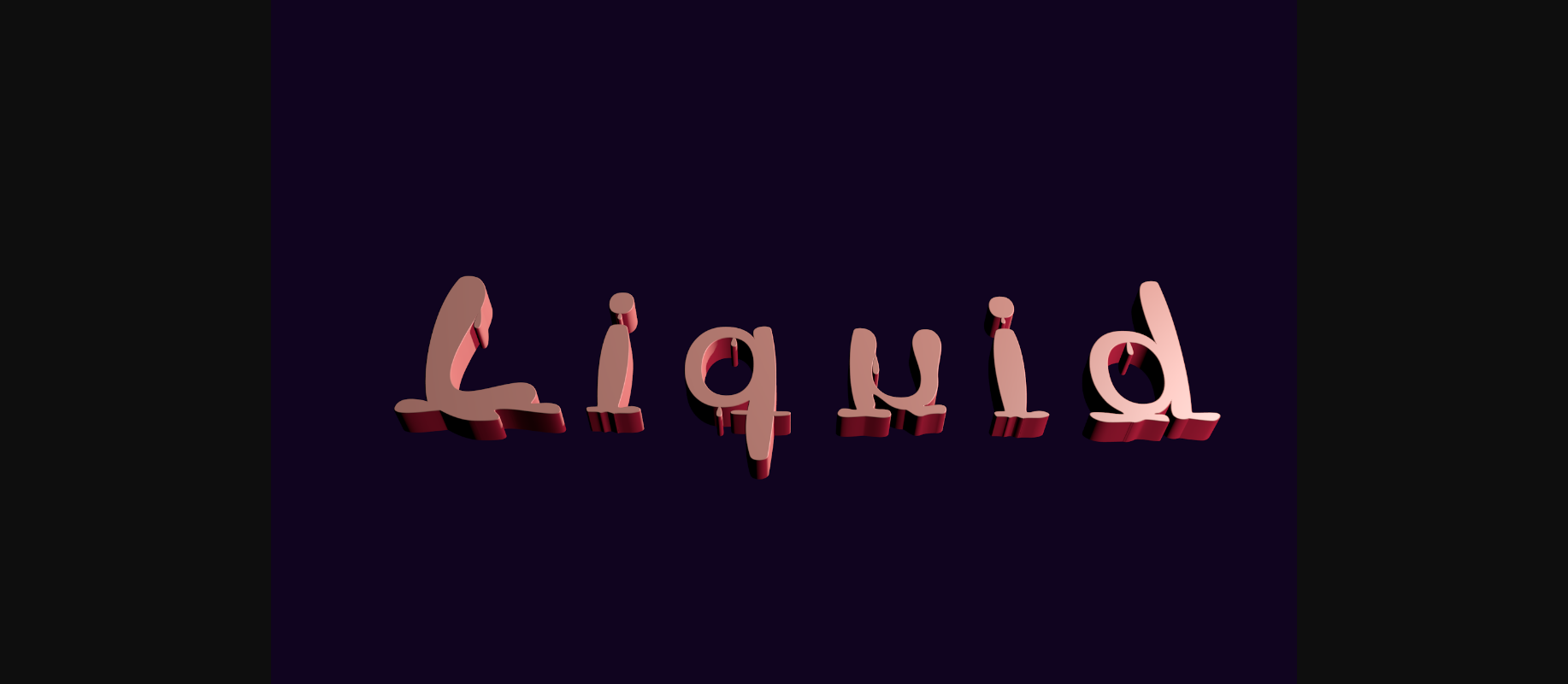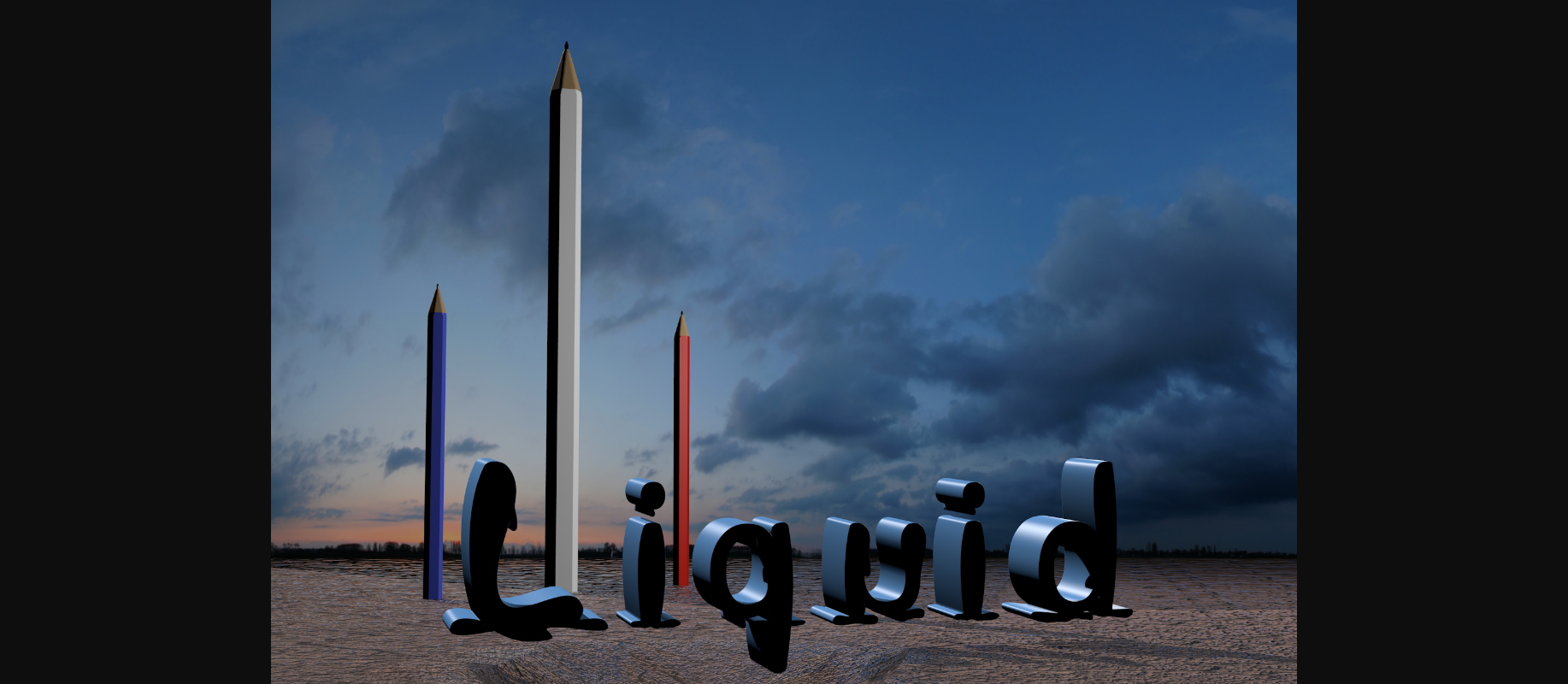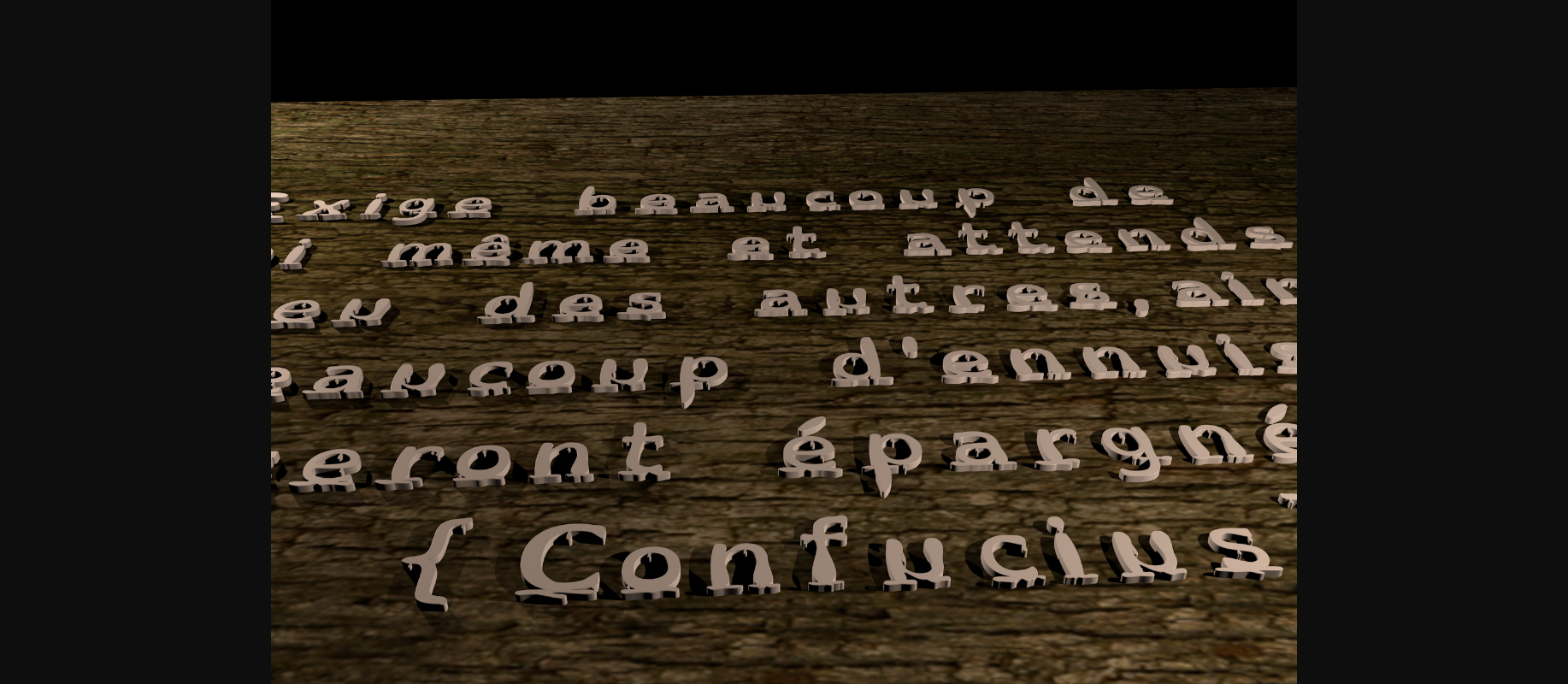
About Liquid Font
The Liquid 3D Font is a captivating typographic masterpiece that brings letters to life. With its fluid and dynamic design, it appears as if the characters are made of flowing liquid. This font adds a mesmerizing and contemporary touch to any design project, making it visually striking and unforgettable.